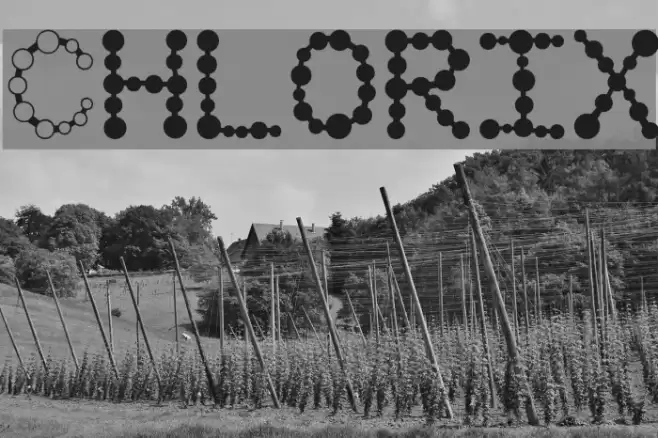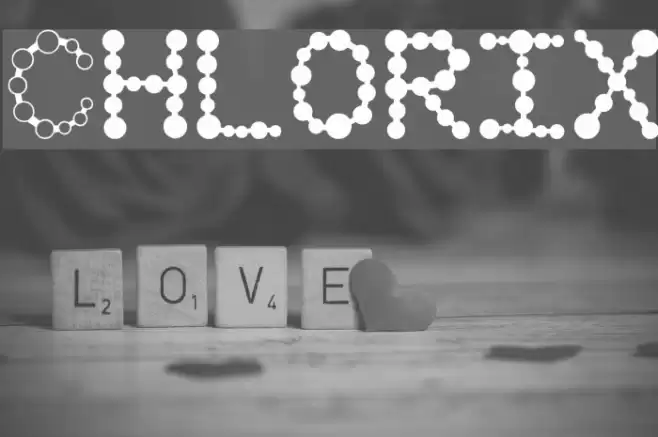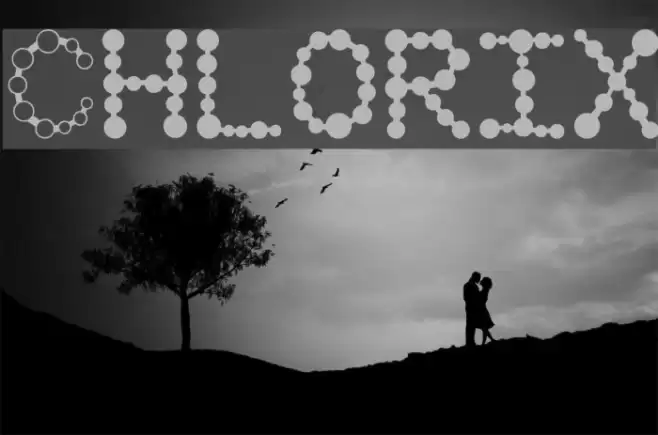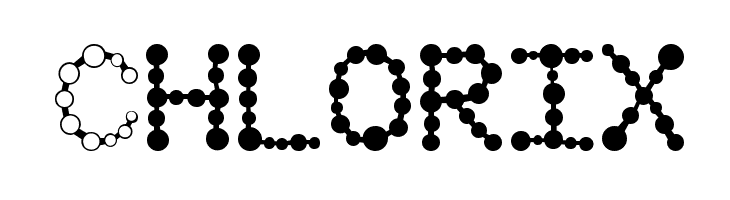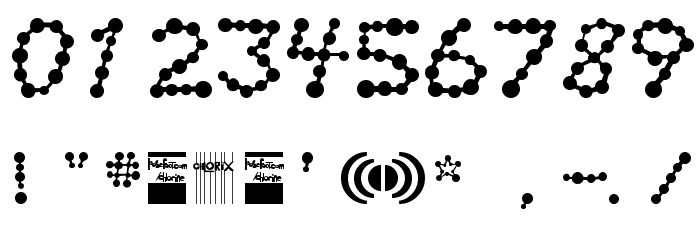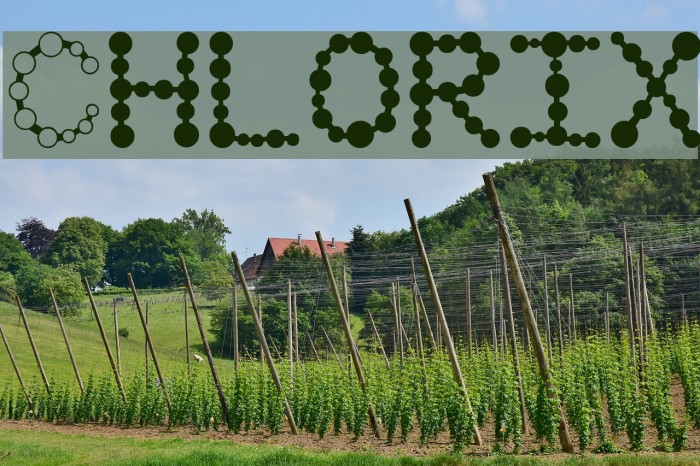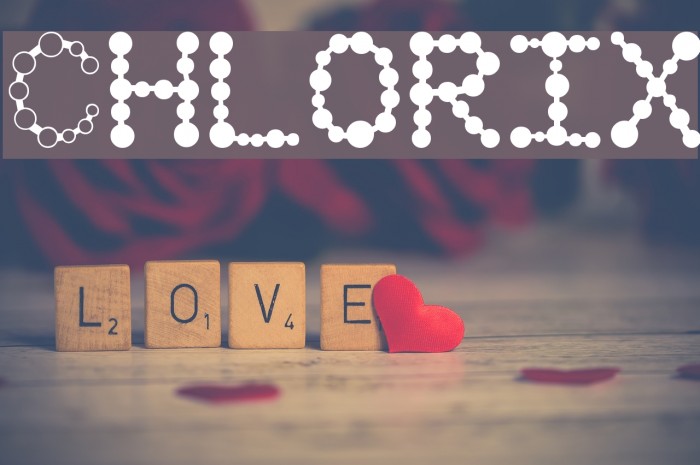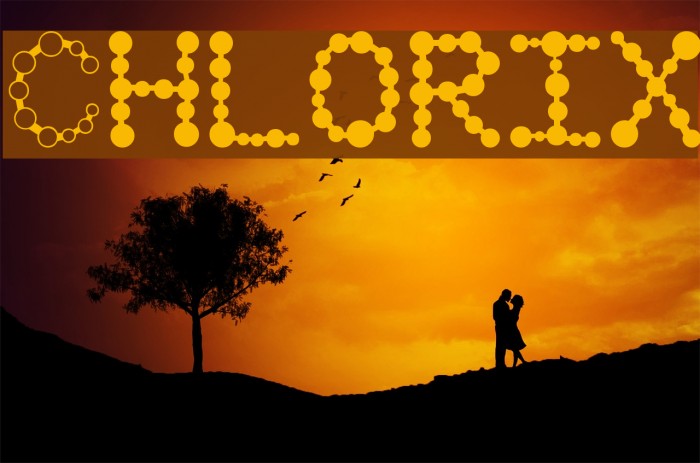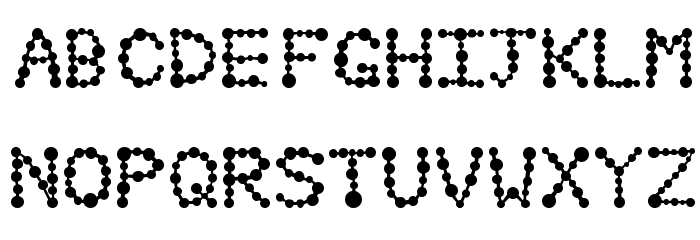
Chlorix Font
Chlorix Description
This font features a unique design where each character is constructed from a series of interconnected circles, creating a dotted effect. The uppercase and lowercase letters maintain a consistent style, with each letterform clearly defined by the circular pattern. The numbers and special characters follow the same design principle, ensuring uniformity across all glyphs. This font's playful and modern aesthetic makes it stand out, offering a distinct visual appeal that is both eye-catching and innovative.
A modern, dotted font with characters formed by interconnected circles from Images & Symbols fonts.
- Proposed Projects: Ideal for creative projects such as posters, logos, and digital artwork where a modern and playful look is desired.
- Use Case: Logos, Posters, Digital Art